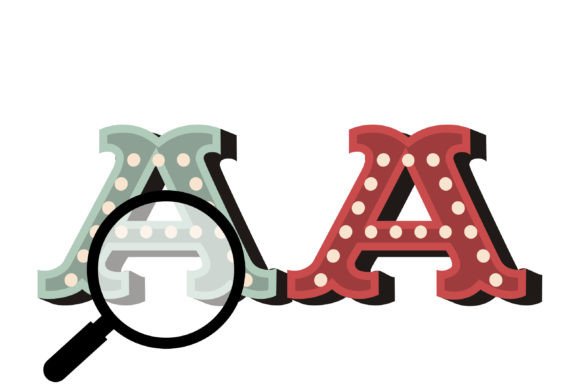
Christmas Circus Font: A Festive and Versatile Full-Color Font
The Christmas Circus Font is a unique and eye-catching font that combines the magic of the circus with the festive spirit of Christmas. This full-color font features a circus-style design in a Christmas color palette, making it perfect for a variety of projects, from holiday-themed designs to circus-inspired creations.
Key Features of the Christmas Circus Font
- Full-color design: The Christmas Circus Font features a full-color design with a range of vibrant colors that will add a touch of personality to your designs.
- Circus-style font: The font features a unique circus-style design that is sure to stand out in any project.
- Christmas color palette: The font features a Christmas color palette, making it perfect for holiday-themed designs.
- Alt case with additional colors: The font includes an alt case with additional colors that can be accessed through your system or Silhouette’s glyph map.
The Benefits of Using Full-Color SVG Fonts
Full-color SVG fonts, like the Christmas Circus Font, offer a range of benefits for designers. Here are some of the advantages of using full-color SVG fonts:
- Versatility: Full-color SVG fonts are versatile and can be used for a variety of projects, from logos and branding to web design and print.
- Scalability: Full-color SVG fonts are scalable, so you can use them for any size project.
- High-quality: Full-color SVG fonts are high-quality and will not lose their resolution when scaled.
- Easy to use: Full-color SVG fonts are easy to use and can be installed in any software that supports SVG fonts.
Uses for Full-Color SVG Fonts
Full-color SVG fonts, like the Christmas Circus Font, can be used for a wide range of projects, including:
- Logos and branding: Full-color SVG fonts can be used to create unique and eye-catching logos and branding materials.
- Web design: Full-color SVG fonts can be used to add a touch of personality to web designs.
- Print design: Full-color SVG fonts can be used to create stunning print designs, from business cards to billboards.
- Social media graphics: Full-color SVG fonts can be used to create eye-catching social media graphics.
Tips for Using Full-Color SVG Fonts
Here are some tips for using full-color SVG fonts:
- Experiment with different colors: Full-color SVG fonts offer a range of color options, so experiment with different colors to find the perfect look for your project.
- Use them sparingly: Full-color SVG fonts can be eye-catching, so use them sparingly to avoid overwhelming your design.
- Pair them with simple fonts: Pair full-color SVG fonts with simple fonts to create a striking contrast.
The Christmas Circus Font is a unique and versatile full-color font that can add a touch of personality to your designs. With its circus-style design and Christmas color palette, it’s perfect for holiday-themed designs and circus-inspired creations. Full-color SVG fonts, like the Christmas Circus Font, offer a range of benefits, including versatility, scalability, and high-quality design. Whether you’re a designer or a DIY enthusiast, full-color SVG fonts are a great way to add a professional touch to your projects.